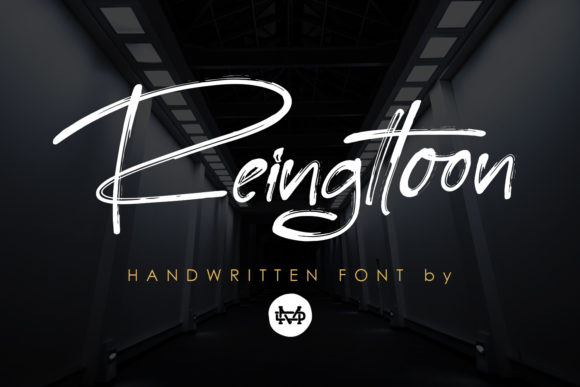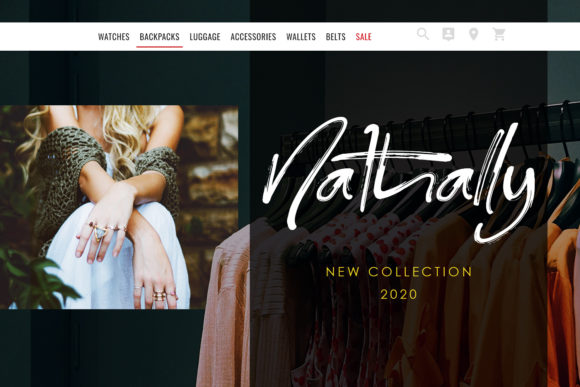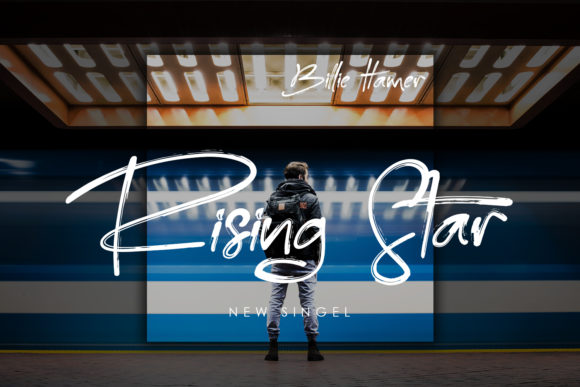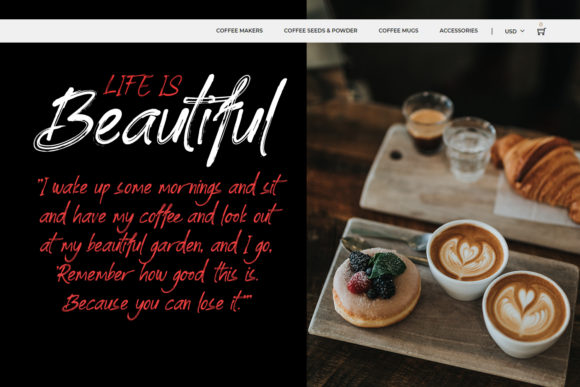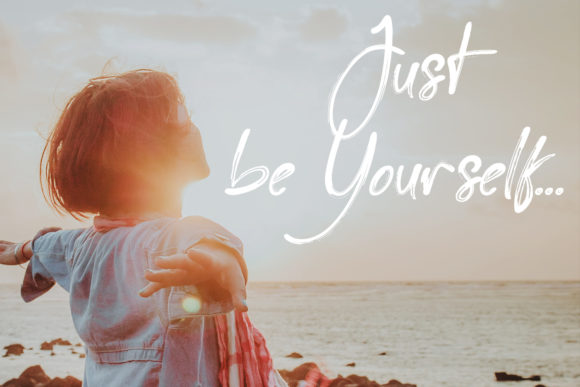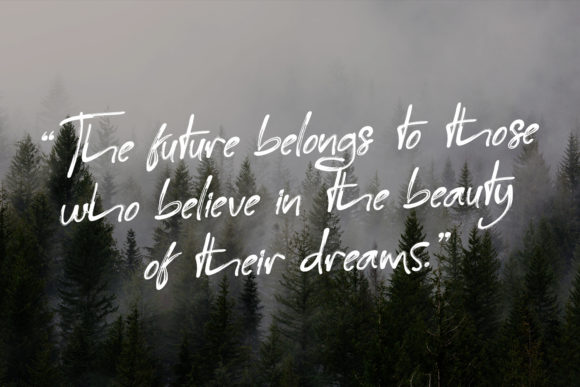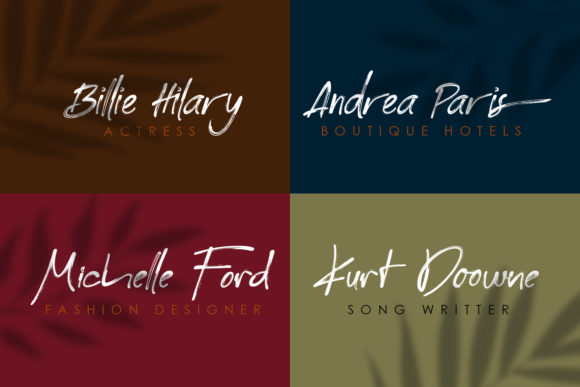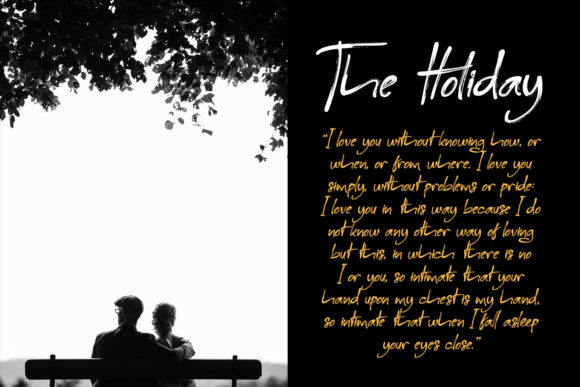
Reingttoon Font
Reingttoon: Embrace the Unique and Flowing Handwritten Font
Introducing Reingttoon, a font that is as unique as it is flowing, created with the graceful strokes of a brush pen. With its handwritten style, this font offers a distinctive charm that sets it apart. Whether it’s elegant wedding invitations, beautiful stationary art, captivating social media posts, or any other design you can imagine—Reingttoon is the perfect companion, ready to add a touch of versatility and beauty to your creations.
The allure of Reingttoon lies in its unique and flowing appearance. Each letter carries the authenticity of handcrafted art, creating an enchanting flow that captures the eye.
Designing with Reingttoon is a delightful experience. Its brush pen origins lend an organic touch to your designs, making them feel personalized and special.
Fall in love with the versatility of Reingttoon. Whether you’re designing for formal events or playful celebrations, this font adapts effortlessly to suit your vision.
Expressing emotions becomes an art form with Reingttoon. Its flowing nature breathes life into your words, making them resonate with a sense of elegance and charm.
Gorgeous designs come to life with Reingttoon’s captivating style. Whether you’re creating unique wedding invitations that set the tone for a romantic celebration or crafting eye-catching social media posts that captivate your audience, this font adds a touch of sophistication that leaves a lasting impression.
In conclusion, Reingttoon is more than just a font; it’s a unique and flowing masterpiece that will make you fall in love with its grace. Embrace its handcrafted allure, and let it become the muse for your most cherished projects. Whether you’re celebrating love, sharing beautiful art, engaging your audience, or unleashing your creativity, Reingttoon will be your trusted companion, adding a touch of authenticity and beauty. Allow this font to unlock the full potential of your creativity, and watch as your designs come alive with the unique and flowing charm of Reingttoon. Fall in love with its natural beauty, and let it be the guiding light that leads you to create truly remarkable designs that leave a lasting impact on all who behold them.